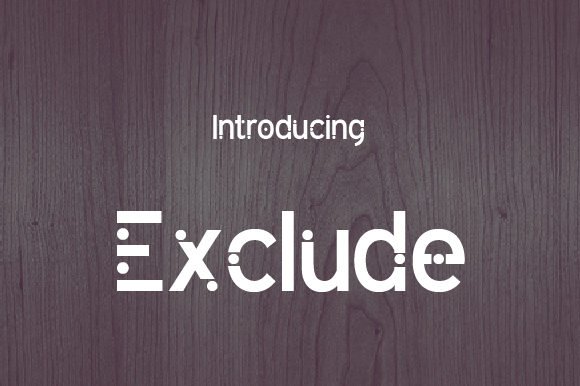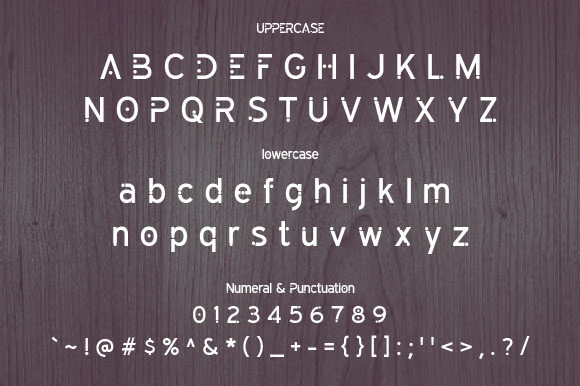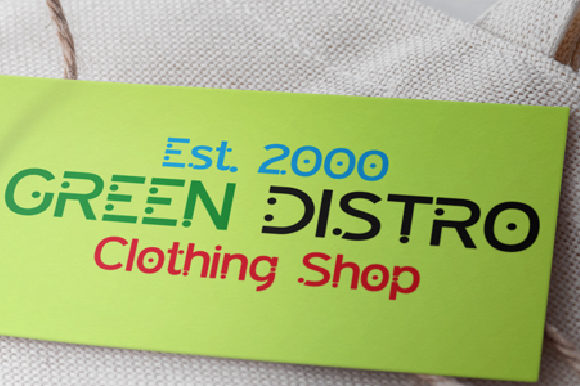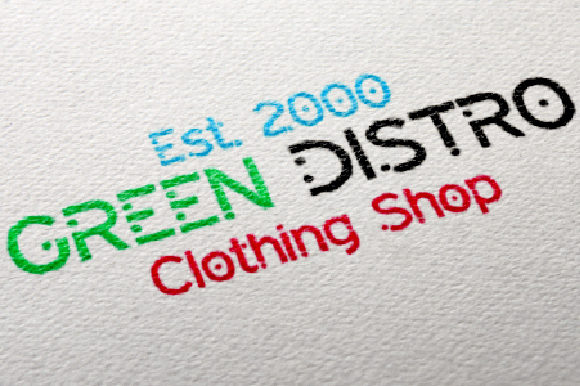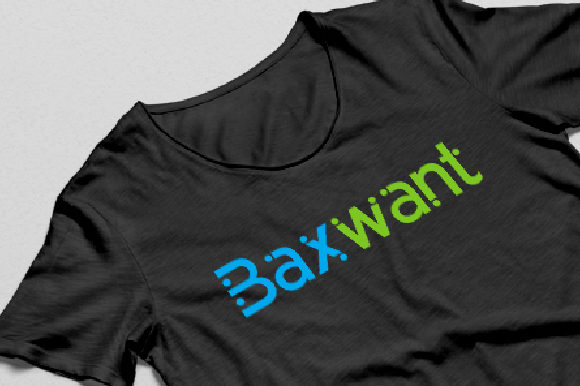
The Perfect Rebellion: Introducing Exclude Font
Have you ever stared at a blank canvas, itching to create something that disrupts the status quo? That’s exactly what happens when you’re faced with a sea of identical, cookie-cutter fonts. But what if you could break free from the monotony and make a bold statement with your design?
Enter Exclude Font, a game-changing typeface that defies the conventional norms of typography. This anti-stream font is perfect for making a lasting impression on name cards, posters, logos, magazines, covers, banners, and large-scale artwork. Its unique design is a refreshing departure from the usual suspects, making it a valuable addition to any designer’s toolkit.
With Exclude Font, designers can inject their work with a much-needed dose of creativity and personality. Whether you’re looking to stand out in a crowded market or simply want to push the boundaries of what’s possible, this font is sure to inspire and delight.
Key Features of Exclude Font
- Unique characteristic: Exclude Font features a distinctive, minimalist design with clean lines and subtle nuances, making it suitable for modern and sleek typography.
- Language support: Includes a comprehensive character set for Latin, Cyrillic, and Greek alphabets, as well as additional characters for various languages and scripts.
- Font weight: Available in Light, Regular, and Bold weights, allowing for flexibility in design and layout.
- Scalability: Designed to be highly scalable, making it suitable for use in various contexts, from small text to large headings and titles.
Exclude Font Review
Overall, I’m impressed with Exclude Font, it has some great features that make it a solid choice for designers. ✨ The font is highly customizable, with a wide range of options for adjusting size, color, and spacing. This flexibility makes it easy to integrate into various design projects. Additionally, the font is highly legible, even at small sizes, which is a must-have for any font.
One of the standout features of Exclude Font is its versatility. ✨ It can be used for both digital and print projects, and it’s suitable for a wide range of industries, from corporate to creative. The font also comes in multiple weights, which adds to its flexibility and makes it a great choice for designers who need to create visually appealing designs.
- ⚠️ Limited language support: Exclude Font only supports Latin script, which may be a limitation for designers working with non-Latin languages.
- ⚠️ Limited glyph coverage: While the font is highly legible, it may not include all the glyphs needed for certain industries or projects, such as finance or medical.
- ⚠️ Not suitable for very small sizes: While the font is highly legible, it may not be the best choice for very small sizes, as it may become difficult to read.
Overall, I would recommend Exclude Font to designers who need a highly customizable, versatile font that’s suitable for a wide range of projects. While it has some limitations, it’s a solid choice that’s worth considering.
Is Exclude Font available in different weights and styles?
Yes, Exclude Font is available in multiple weights and styles, including light, regular, medium, bold, and italic